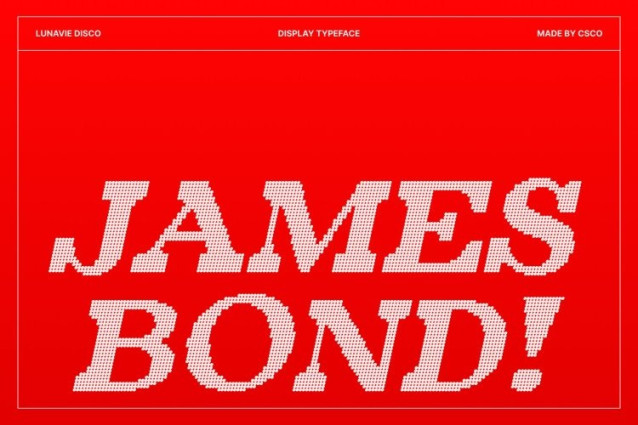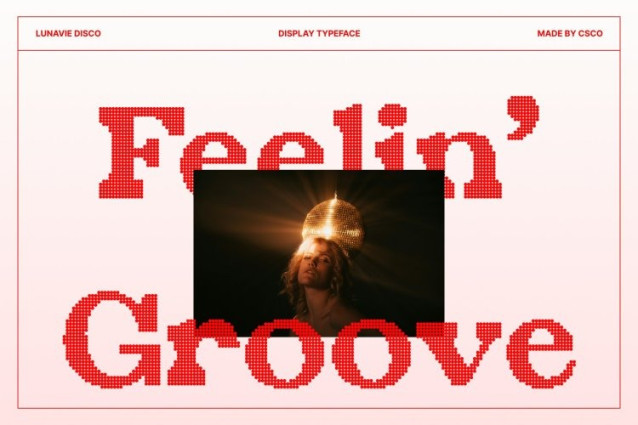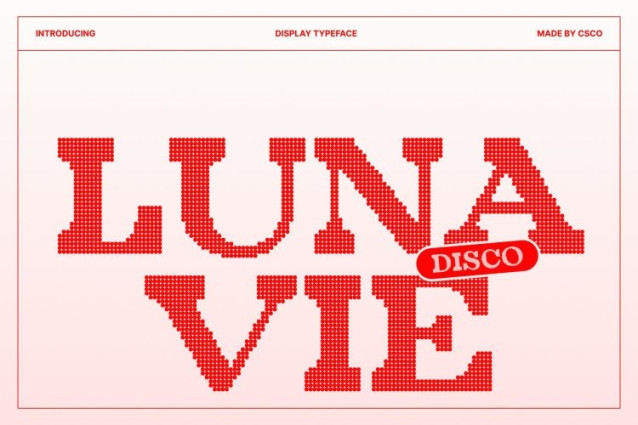
Lunavie Disco Font
Lunavie Disco Font This bold serif font commands attention with its powerful structure and confident proportions. Every letter delivers impact, making it perfect for statements that need strength, clarity, and unmistakable presence. The thick serif design adds authority while maintaining a stylish silhouette that suits modern and classic aesthetics alike.
Disco Style for Glamour and Sparkling Energy
Enhanced with a shimmering disco effect, this typeface radiates glamour and lively energy. The sparkling texture brings a sense of brightness and celebration, transforming each character into a glowing visual element. This glamorous disco styling elevates the font from bold to dazzling, making it ideal for designs that want to shine literally and stylistically.
Ideal for Headlines, Posters, and Impactful Branding
Whether used for bold headlines, expressive posters, or standout branding, this font ensures strong readability and unforgettable visual impact. The combination of heavy serif forms and glittering detail makes it a perfect centerpiece for event promotions, fashion branding, party themes, or any design looking to project confidence and sparkle.
A Fusion of Strength, Style, and Sparkling Sophistication
By blending bold serif construction with a radiant disco-inspired finish, this typeface offers a dramatic yet elegant look. It balances powerful weight with glamorous shine, delivering a design experience that feels both authoritative and festive perfect for creators who want their visuals to impress, excite, and captivate.